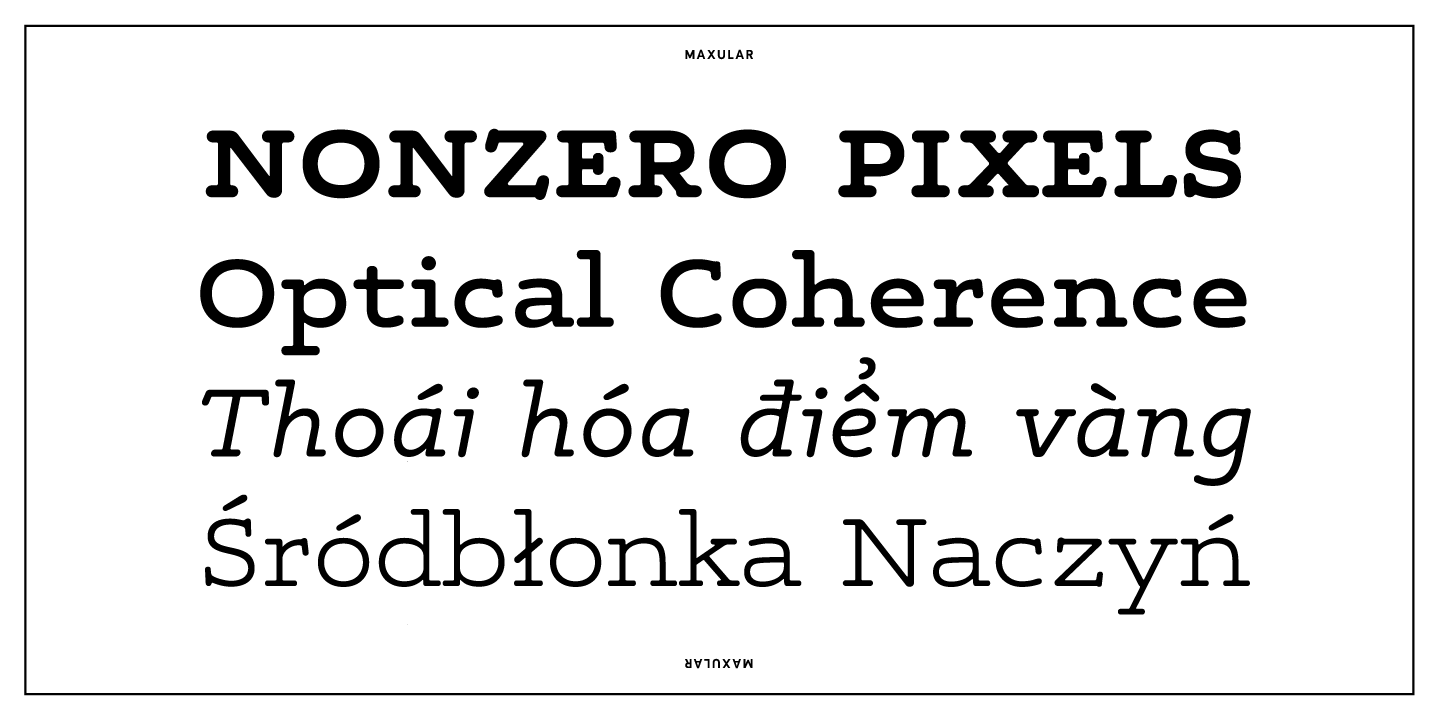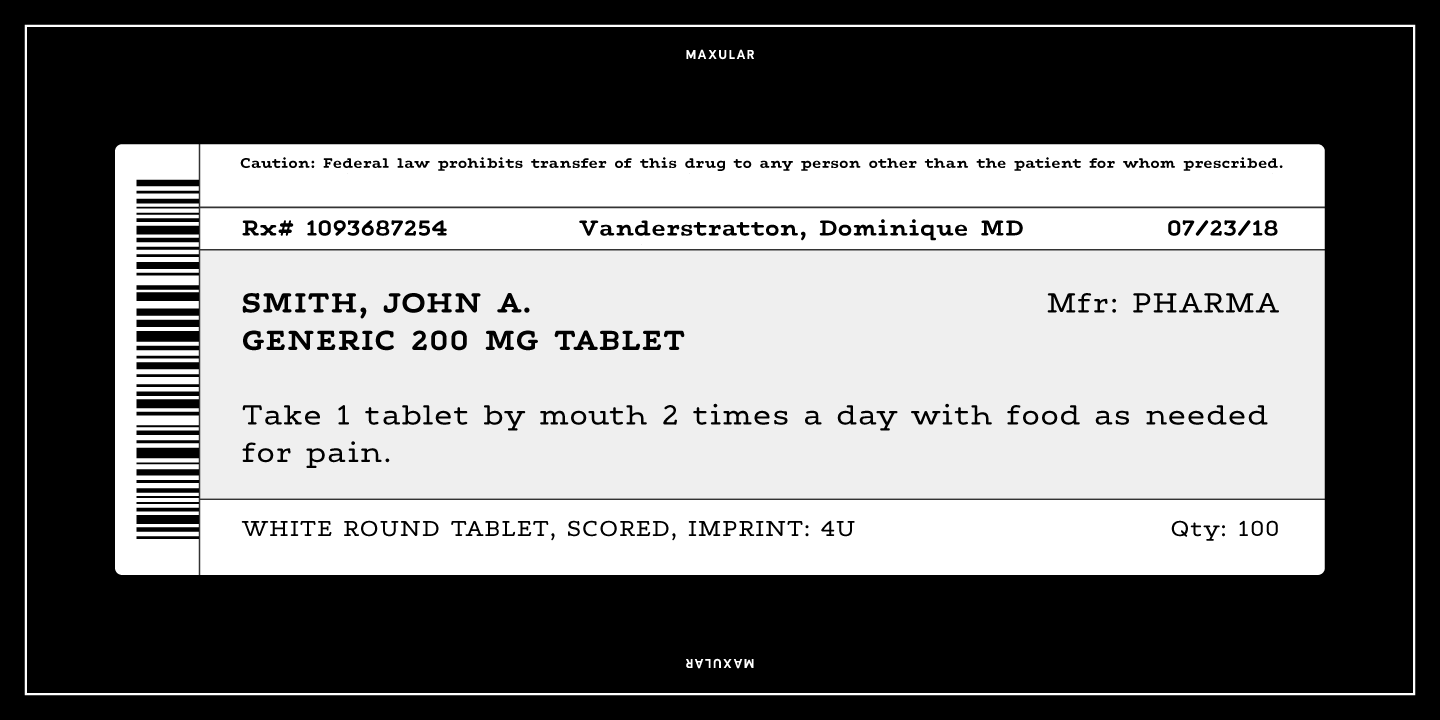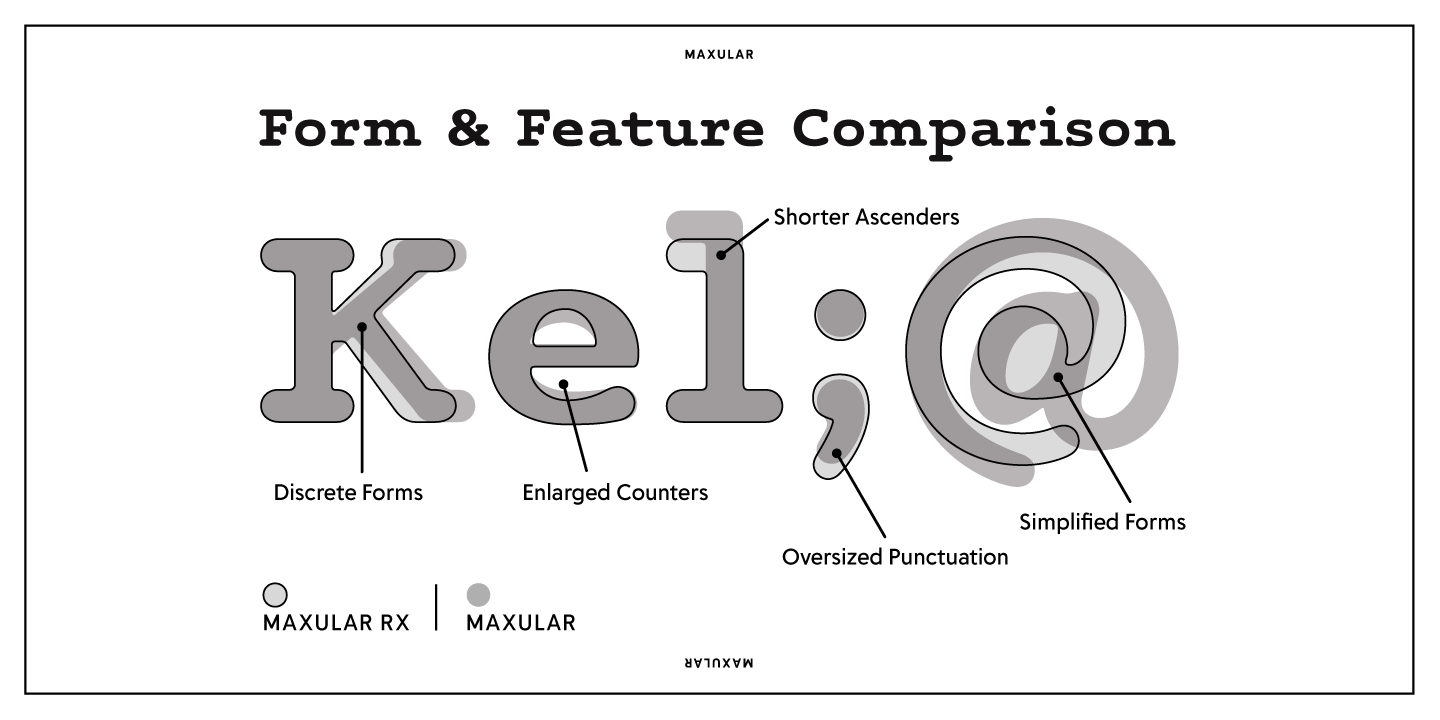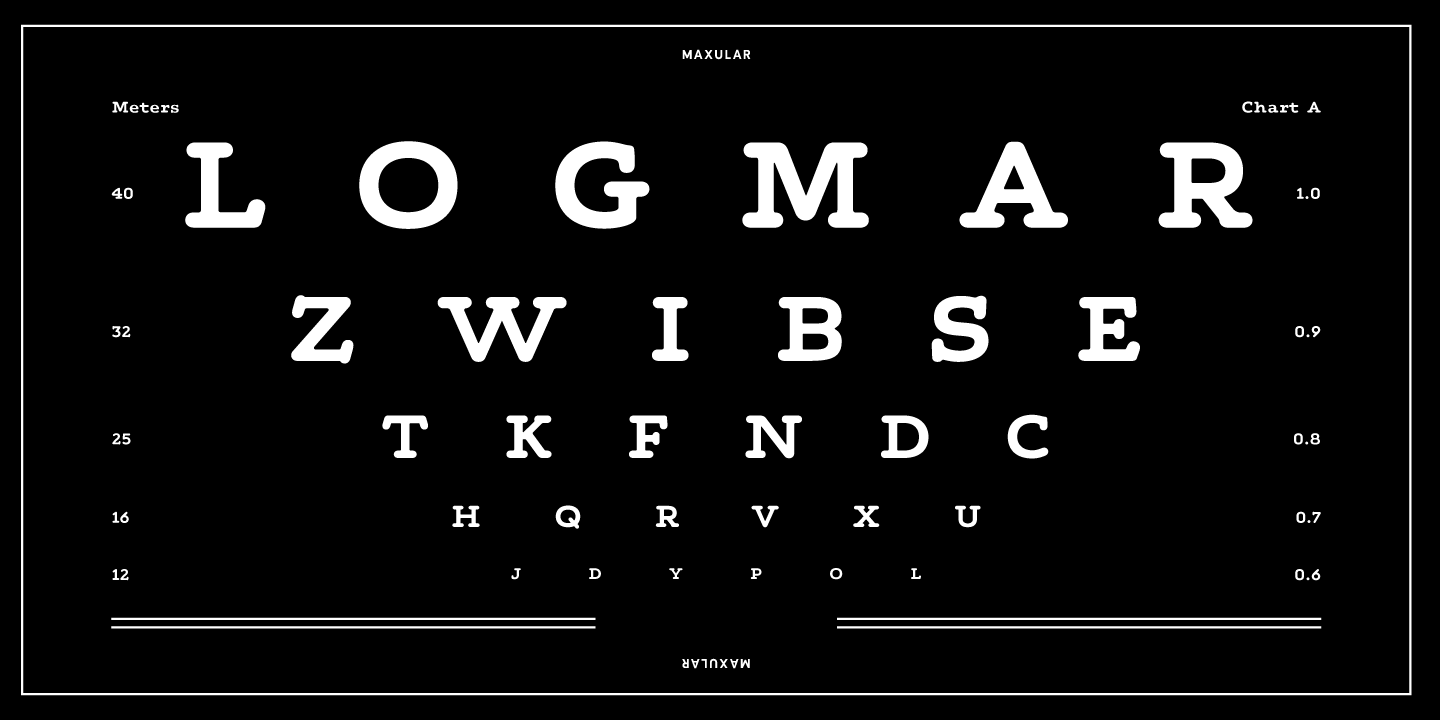
About Maxular
Maxular Rx by Steven Skaggs is the first type expressly designed and scientifically proven to address Macular Degeneration (MD) visual related distortions. Serifs aid in separating one letter from another for those with MD and corners are rounded to avoid…